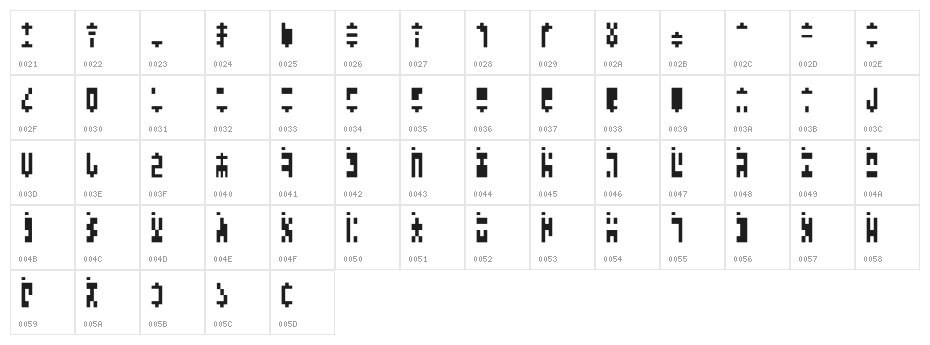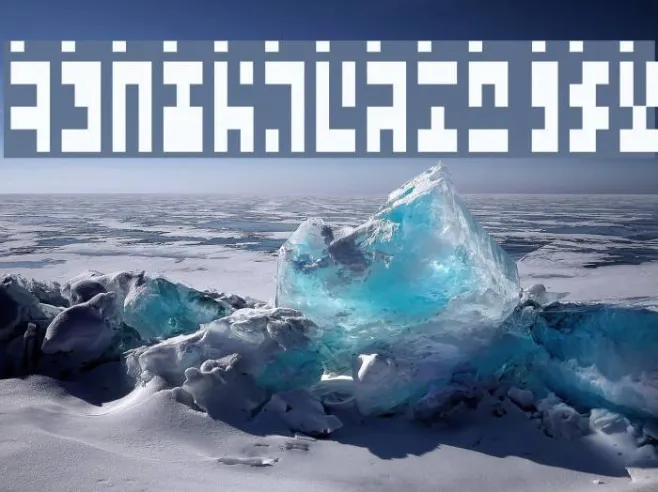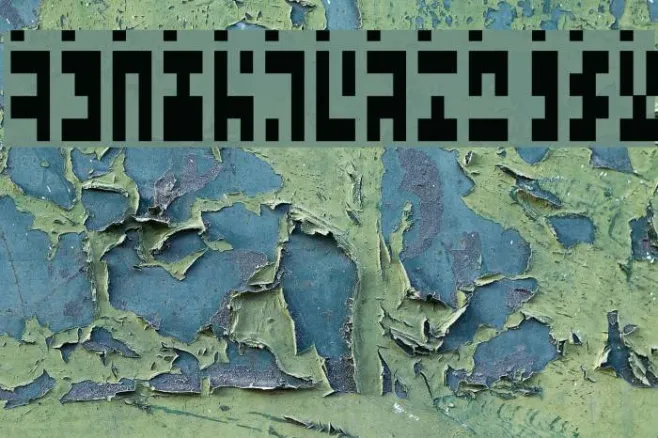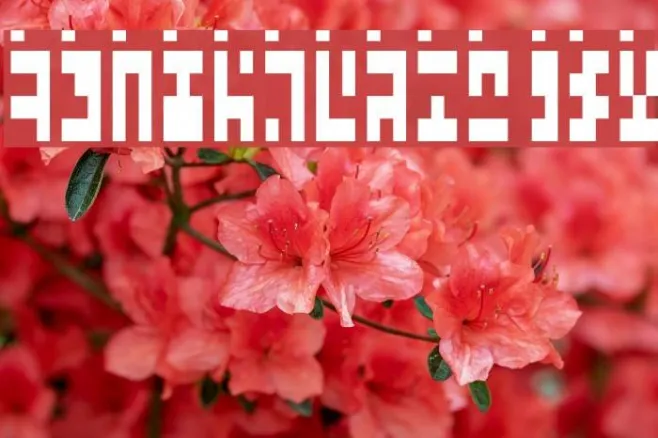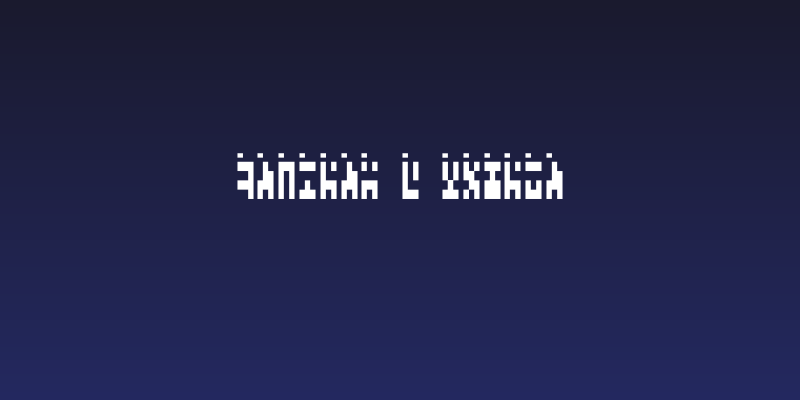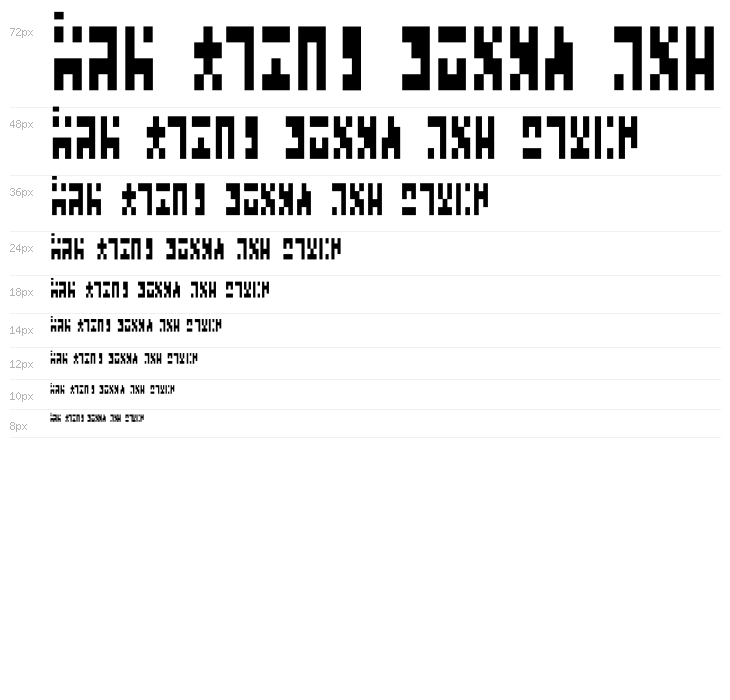
Ancient G Modern Font
Ancient G Modern Description
This font features a bold, geometric design with a distinctly modern and digital aesthetic. Each character is composed of thick, blocky shapes that create a strong visual impact. The uniformity in stroke width gives it a monospaced appearance, while the angular forms and sharp edges contribute to its futuristic style. The characters are tightly spaced, enhancing the compact and cohesive look of the text. This font's high contrast and solid structure make it ideal for attention-grabbing designs.
| Proposed Projects | Ideal for digital art, video game interfaces, tech branding, and futuristic posters. |